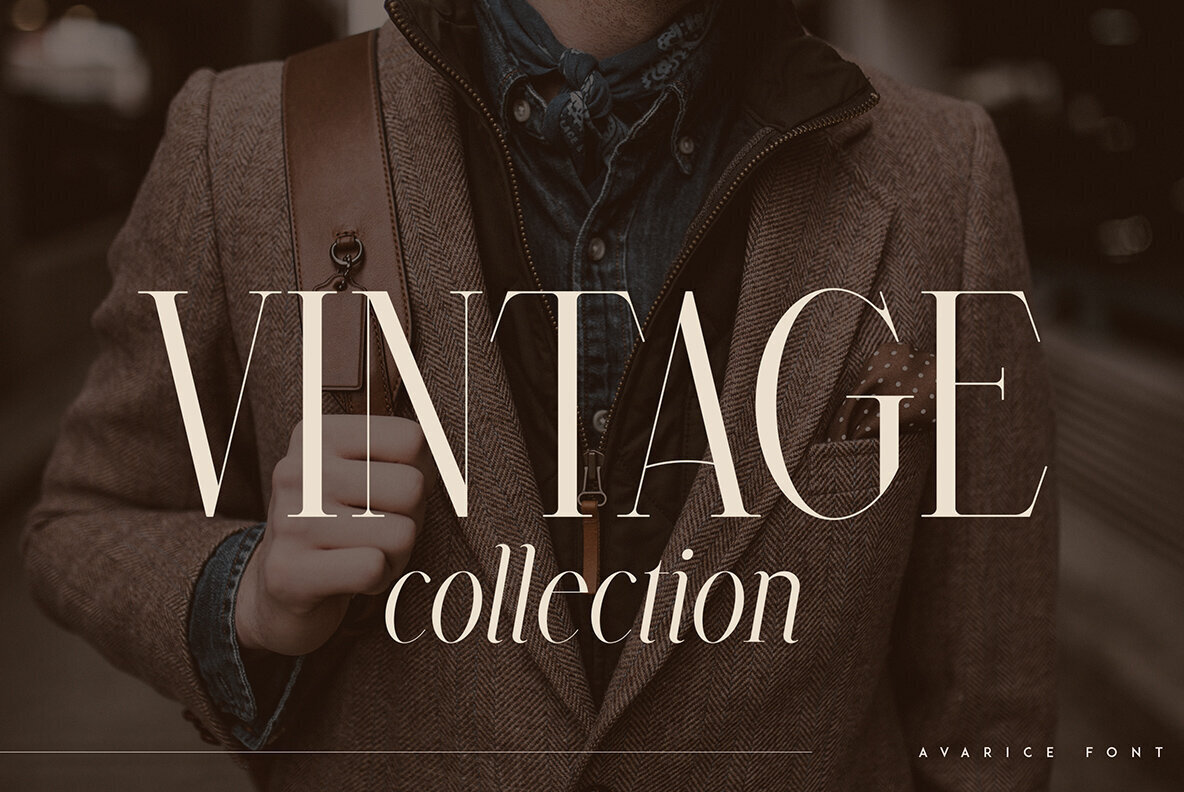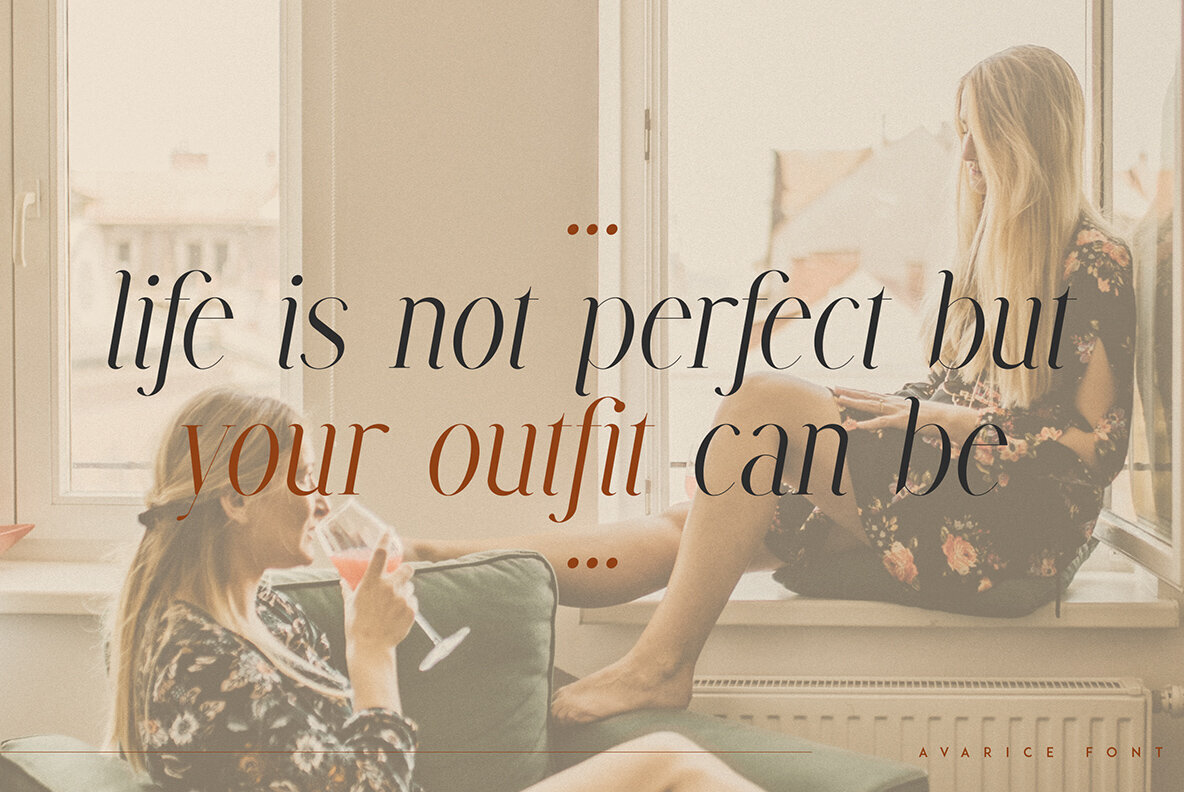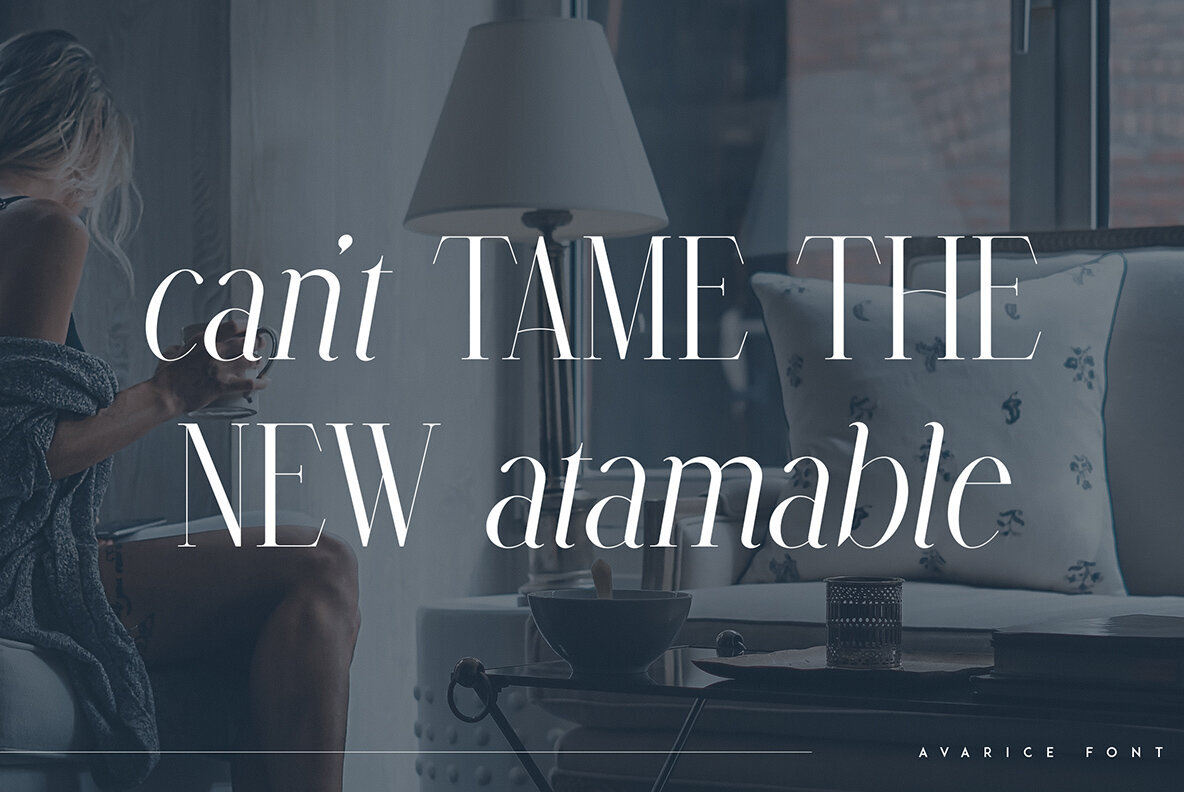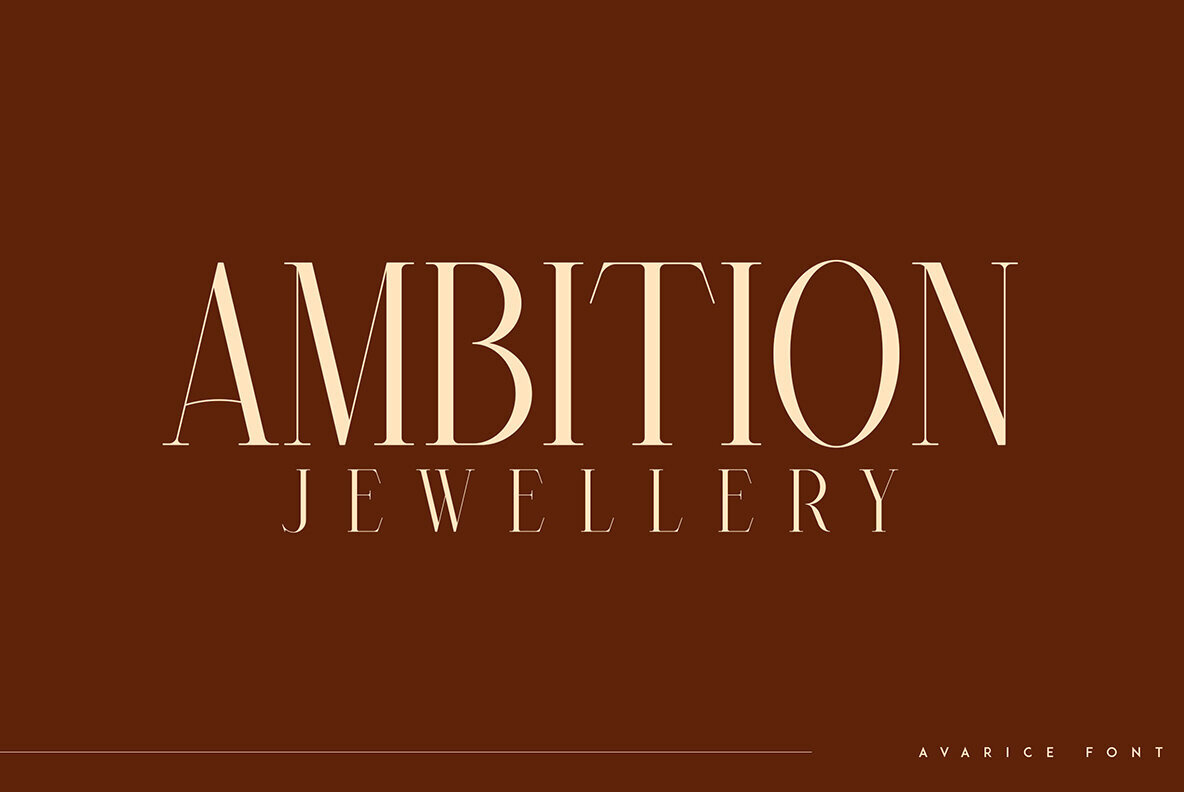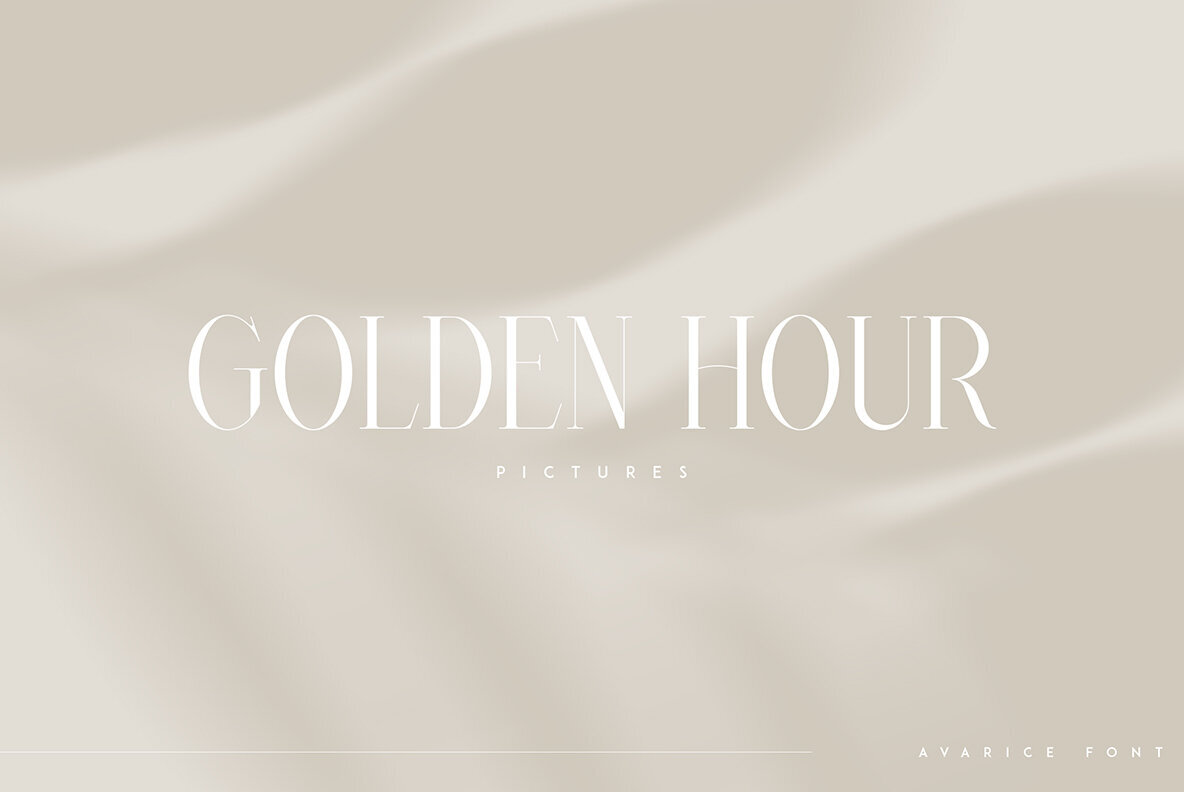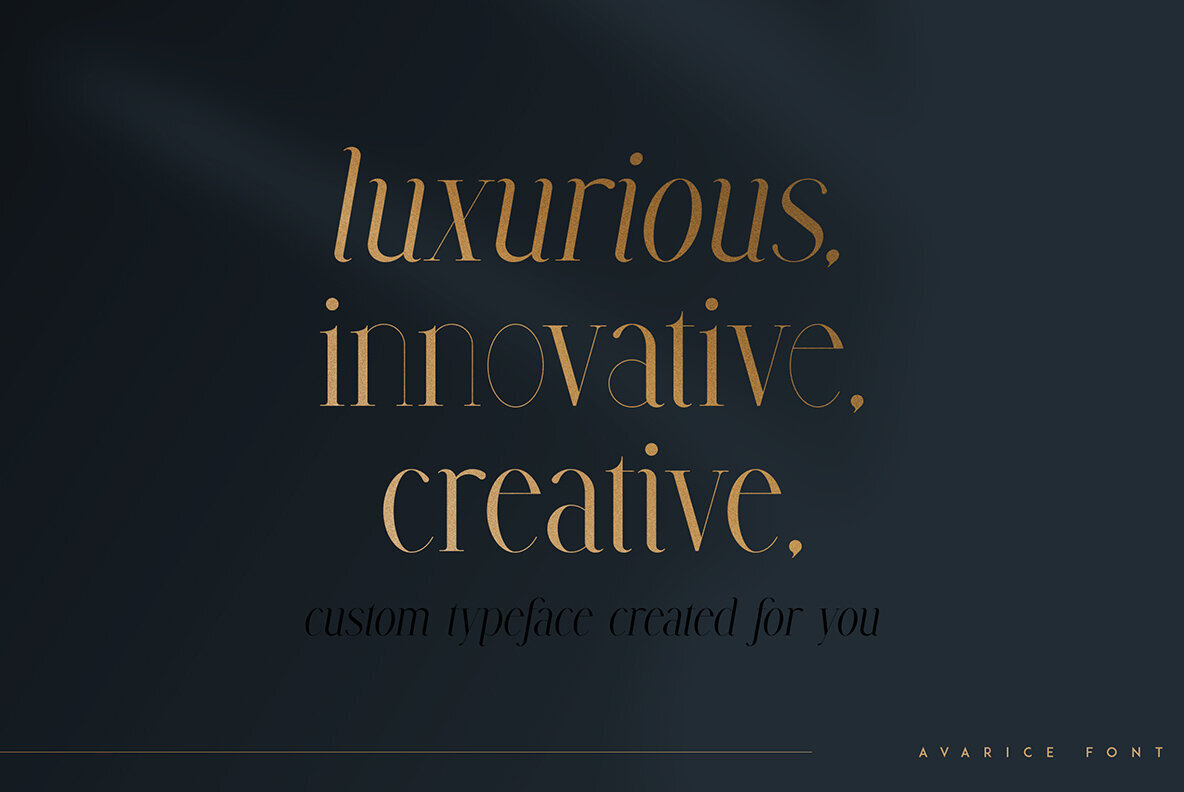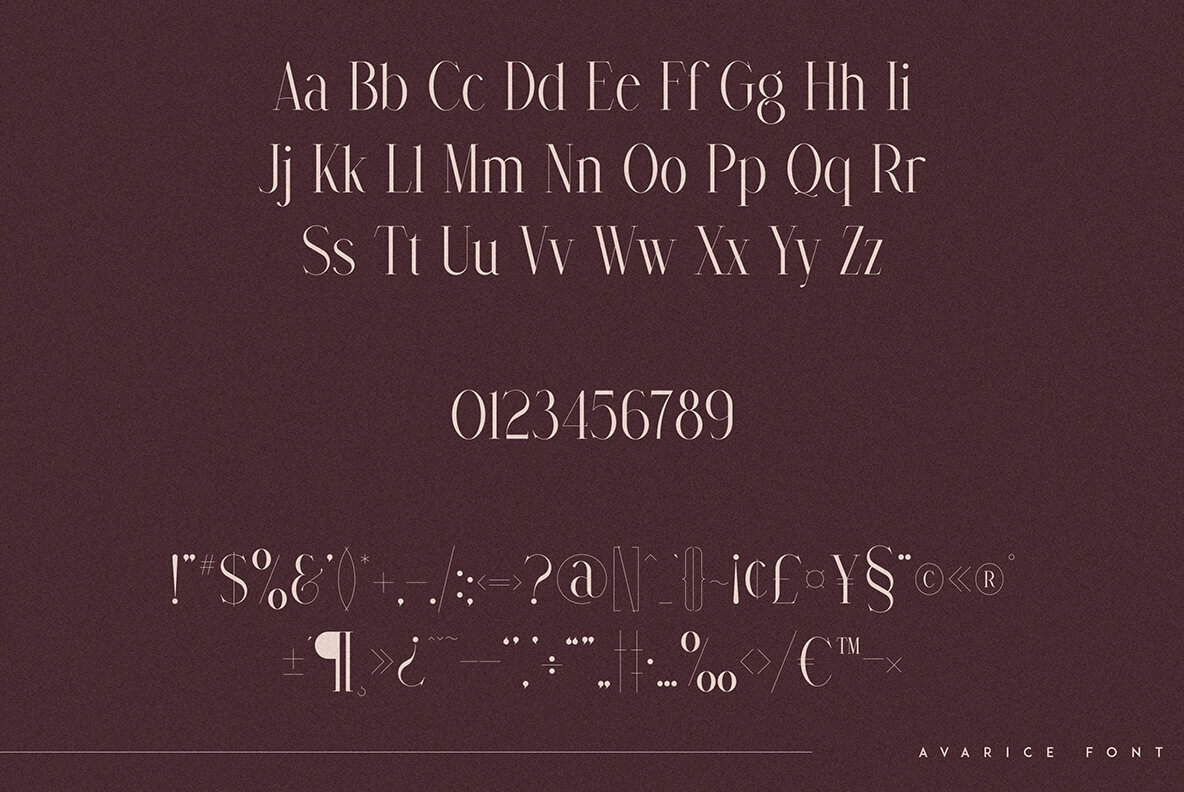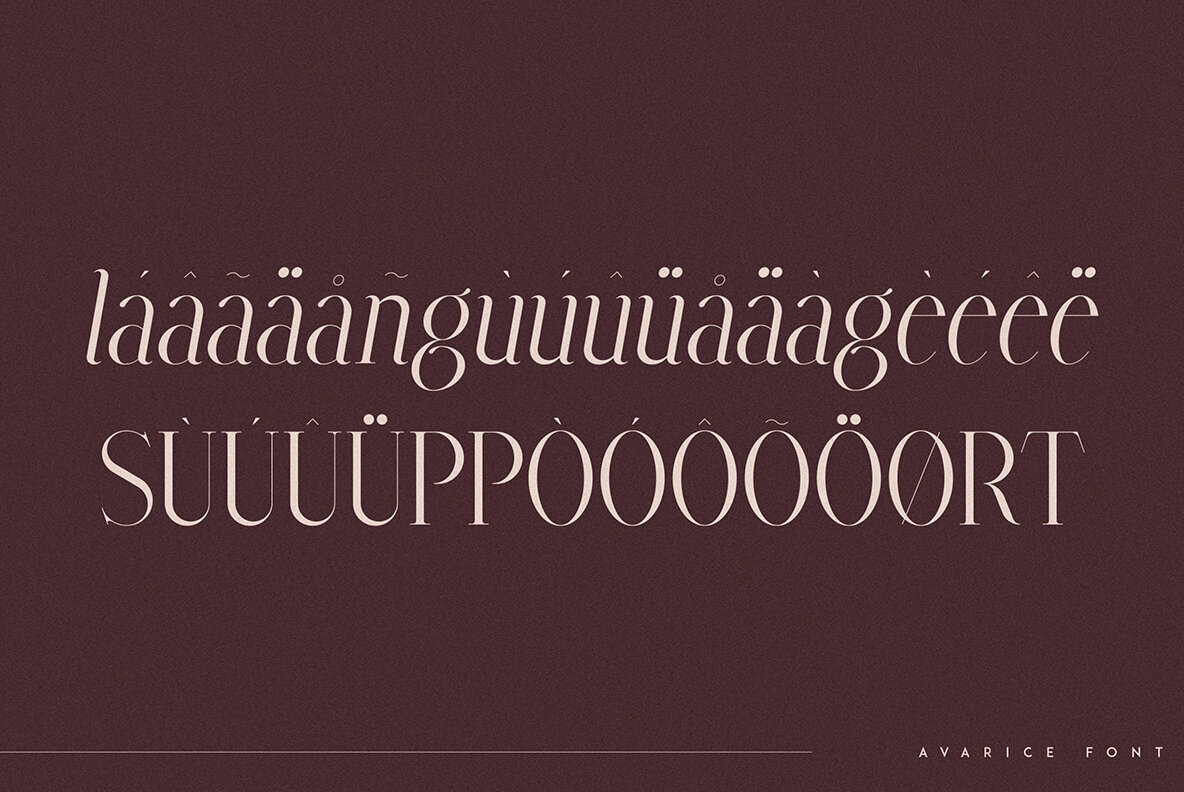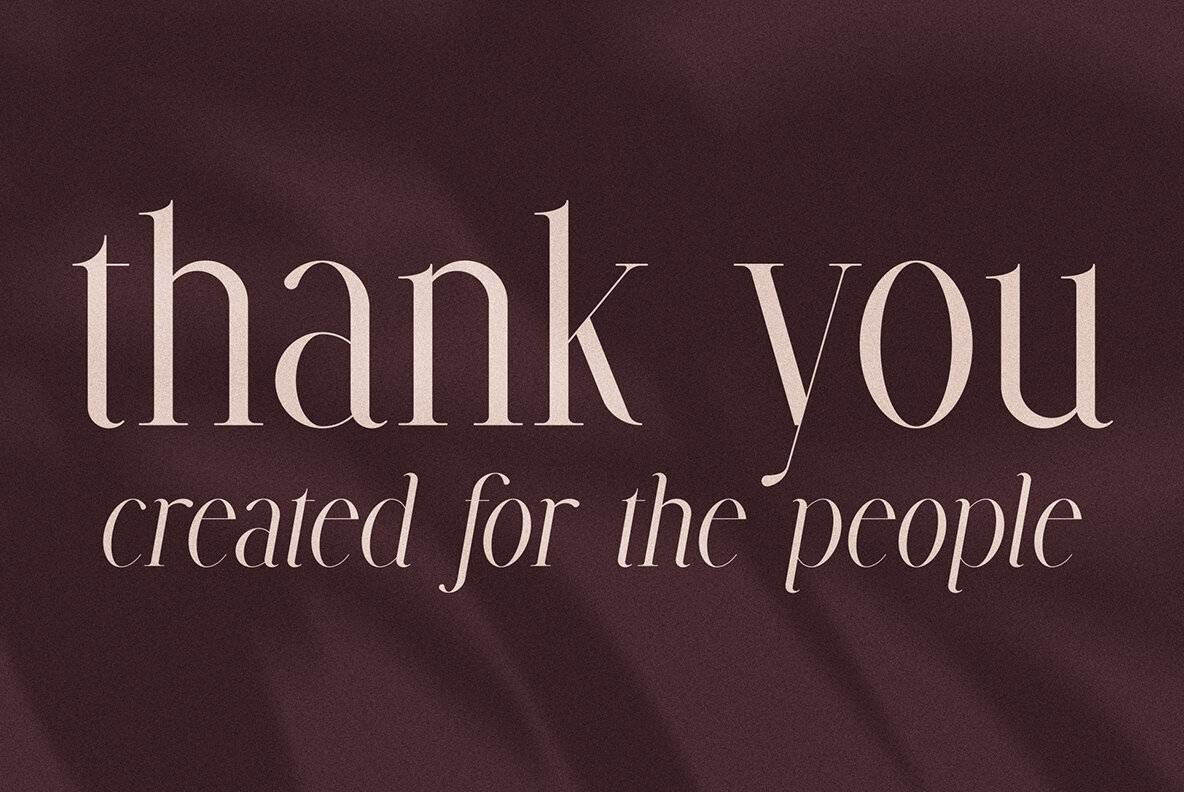
Avarice Font
Avarice Regular
Avarice Italic
Avarice Style 1
Avarice Style 2
For the discerning graphic designer, Avarice by VP Creative Shop presents an elegant typeface that combines versatility with sophistication. Comprising four distinct fonts, it seamlessly supports multilingual applications. Its adaptability gracefully accommodates both large-scale and intricate designs. Whether employed in branding projects, product packaging, or as an eye-catching magazine header, Avarice excels. Its stylish demeanor makes it an equally compelling choice for enhancing visual overlays on diverse backgrounds.Avarice: A Long and Elegant Typeface